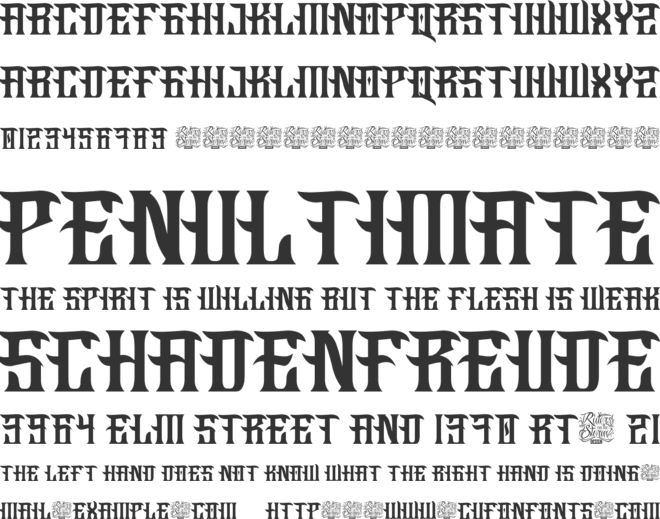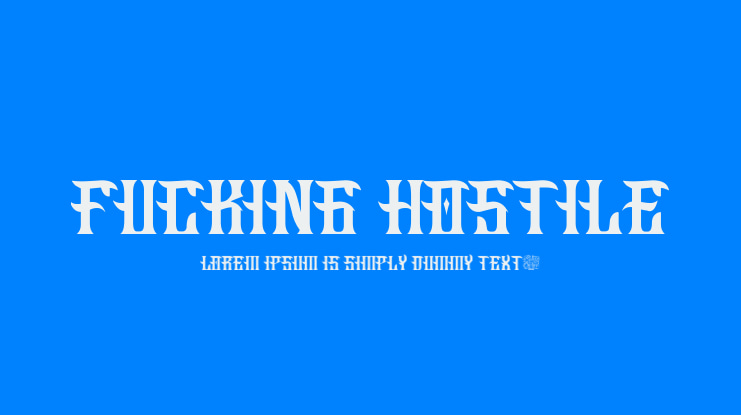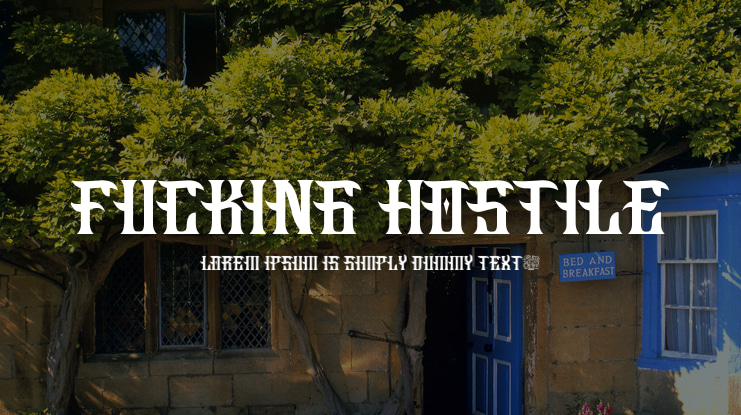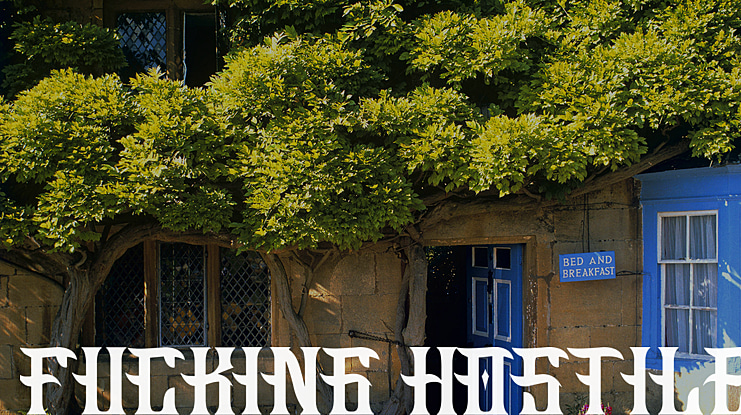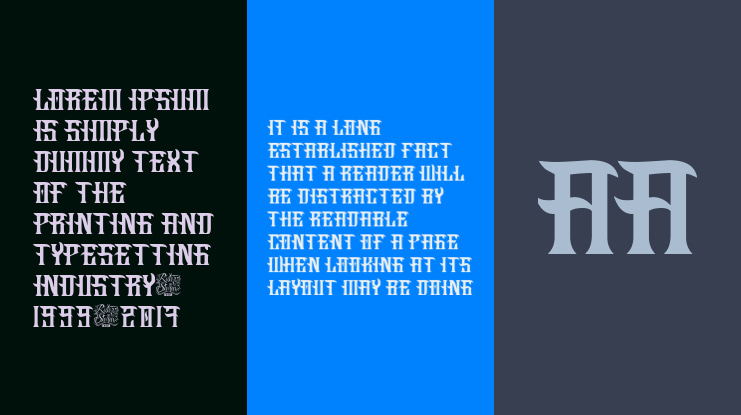
Fucking Hostile Font
Fucking Hostile is a typeface inspired by the style of letters of the urban culture of Cholos / Gangs, by Ricardo Saul Castellanos Pabello "Richie Mx" in the design studio "Riders on the Storm Design"